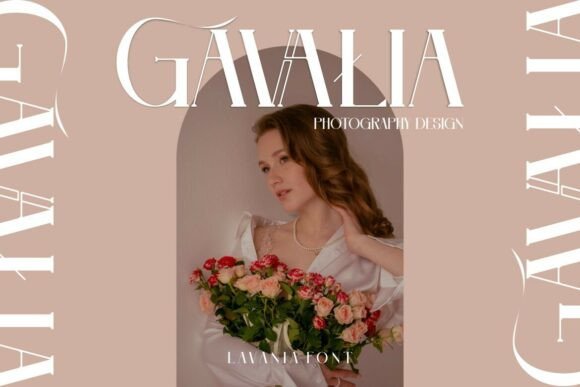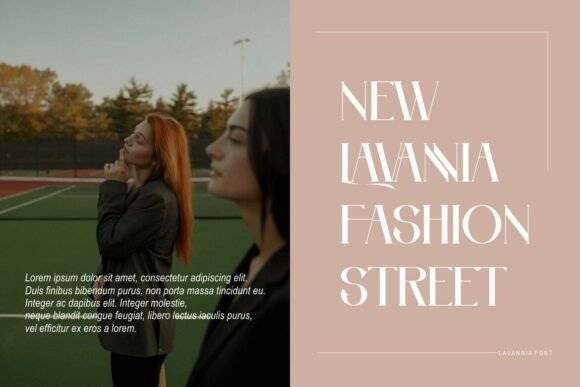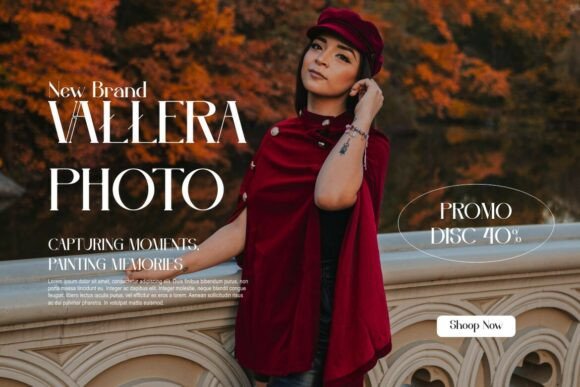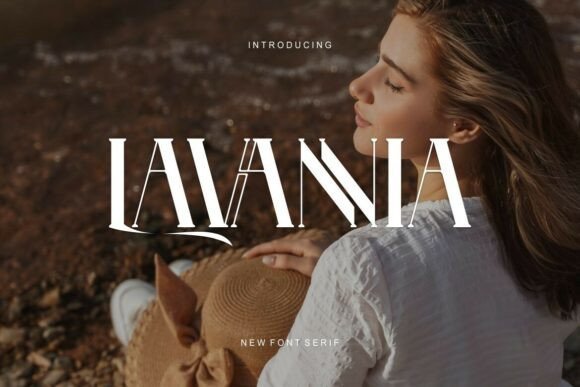
Introduction to Lavannia Font
Lavannia is a bold and artistic modern serif font defined by its striking high-contrast design.
It features tall, elegant letterforms with sharp terminals and unique, elongated stylistic curves that add a custom, boutique feel This typeface is perfectly suited for fashion mastheads, luxury product packaging, premium signage, and high-impact branding projects that want to convey elegance and creative flair.
Key Features of Lavannia Font
Why Choose Lavannia Font?